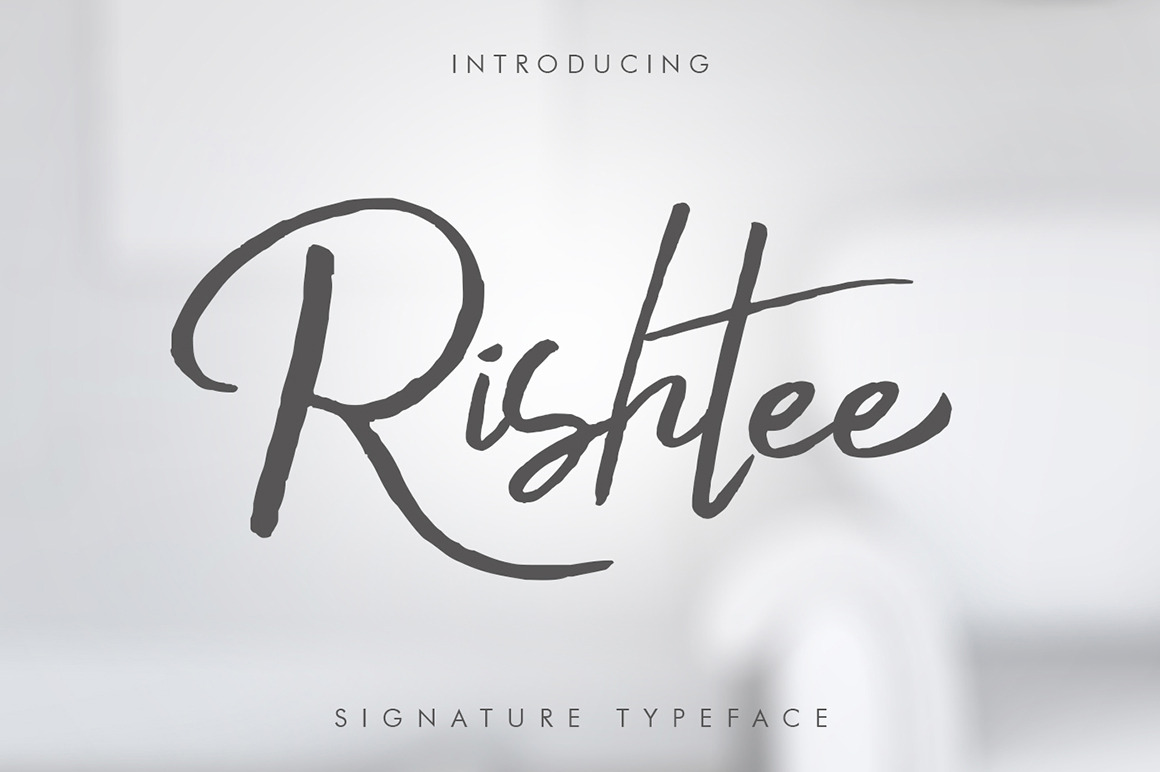
Introducing Rishtee Signature Typeface - a font that is very fresh and unique style handmade. Rishtee Signature Typeface is perfectly suited to logo, stationery, poster, apparel, branding, wedding invitation, card, tagline, layout design, and much more !!
You can access alternate with add number 1 after lowercase letter.
For example: you can write Rishtee1 on the tester box